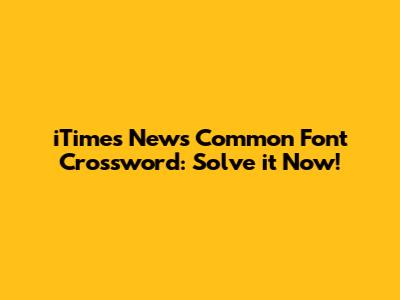
Hey guys! Ever get that itch to flex your brain muscles? Well, look no further! We're diving headfirst into the world of crosswords, specifically focusing on the iTimes News Common Font Crossword. This isn't just any crossword; it's a delightful blend of general knowledge, vocabulary, and a dash of font recognition (yes, you read that right!). So, grab your thinking caps, and let's get started!
Why iTimes News Common Font Crosswords Are Awesome
iTimes News Common Font Crosswords offer a unique twist on the classic crossword puzzle. What makes them awesome? Several reasons actually! First off, these crosswords often incorporate clues related to typography and font styles, adding an extra layer of challenge for design enthusiasts or anyone with a keen eye for detail. You might encounter clues that ask you to identify a specific font based on its characteristics or to name a famous typeface designer. This blend of traditional crossword elements with font-related questions makes the iTimes News crossword a stimulating and educational experience.
Secondly, the iTimes News Common Font Crossword puzzles generally maintain a high standard of clue quality and grid design. The clues are usually well-crafted, avoiding obscurity while still providing a satisfying level of difficulty. The grids are designed to be symmetrical and aesthetically pleasing, enhancing the overall solving experience. This attention to detail sets iTimes News crosswords apart and makes them a favorite among crossword aficionados. Also, solving crosswords, including the iTimes News Common Font Crossword, is a fantastic way to keep your mind sharp. Crosswords help improve vocabulary, enhance problem-solving skills, and boost cognitive function. Regularly tackling these puzzles can lead to improved memory, concentration, and overall mental agility. The sense of accomplishment you feel after completing a challenging crossword is also a great mood booster! Who wouldn't want to feel smarter and happier?
Decoding the Common Font Clues
When it comes to cracking those font-related clues, you'll want to familiarize yourself with common fonts and their characteristics. Think about fonts like Times New Roman, Arial, Helvetica, and Courier New. What are their distinguishing features? Is Times New Roman a serif or sans-serif font? Is Arial known for its clean lines? Knowing these basics will give you a head start. Also, pay attention to the wording of the clue. Does it hint at the font's origin, its designer, or its typical usage? Sometimes the clue will provide subtle hints that can guide you towards the correct answer. For example, a clue like "A widely used serif font for body text" is a strong indicator that the answer is Times New Roman. Furthermore, don't be afraid to use online resources to help you identify fonts. There are many websites and tools that allow you to upload an image of a font and identify it. These resources can be invaluable when you're stuck on a particularly tricky font clue. Keep an eye out for common font-related terms like "serif," "sans-serif," "italic," "bold," and "kerning." Understanding these terms will help you decipher clues and narrow down your options.
Strategies for Solving iTimes News Crosswords
Okay, let's talk strategy! Solving any crossword, including the iTimes News Common Font Crossword, requires a blend of skill, knowledge, and technique. Start with the easy clues. Fill in the answers you know right away. This will give you a foundation and provide some letters to work with for the more challenging clues. Also, look for common crossword patterns and prefixes. Words like "ERA," "STS," and prefixes like "RE-" and "UN-" often appear in crosswords. Recognizing these patterns can help you fill in gaps and make educated guesses.
Next, use the process of elimination. If you're unsure of an answer, consider the possible options and eliminate those that don't fit based on the crossing letters. This can help you narrow down your choices and increase your chances of finding the correct answer. Work on sections of the crossword at a time. Focus on one area of the grid and try to complete as many clues as possible in that section before moving on. This can help you build momentum and make progress more efficiently. Remember to read the entire clue carefully. Pay attention to any specific instructions or qualifiers that may be included in the clue. Sometimes the clue will provide a subtle hint that can help you arrive at the correct answer. Use online resources if you get stuck. There are many websites and forums where you can find crossword solvers, answer keys, and helpful tips. Don't be afraid to use these resources to give you a little boost when you're feeling stuck. Finally, take breaks when you need them. If you're feeling frustrated or burnt out, step away from the crossword for a few minutes and come back to it later with fresh eyes. Sometimes a little bit of distance can help you see things more clearly.
Common Mistakes to Avoid
We've all been there – staring blankly at a clue, convinced we'll never solve it. But fear not! Avoiding common pitfalls can significantly improve your crossword game. A frequent mistake is misinterpreting the clue. Always read the clue carefully and pay attention to any specific instructions or qualifiers. For example, a clue might ask for a synonym, an abbreviation, or a word from a foreign language. Failing to recognize these nuances can lead you down the wrong path. Another common mistake is overlooking the crossing letters. The letters that are already filled in from other answers can provide valuable clues and help you eliminate incorrect possibilities. Make sure to pay attention to these crossing letters and use them to your advantage.
Also, people often give up too easily. Crosswords can be challenging, but persistence is key. Don't be afraid to struggle with a clue for a while, and don't give up until you've exhausted all possible options. Sometimes the answer will come to you when you least expect it. Furthermore, neglecting to check your answers is a common mistake that can lead to frustration later on. Before you finalize your solution, take the time to double-check all of your answers and make sure they fit with the crossing letters. A simple mistake can throw off the entire puzzle. Also, relying too heavily on online solvers is a mistake that can hinder your progress and prevent you from developing your own problem-solving skills. While online solvers can be helpful in a pinch, try to use them sparingly and focus on solving the crossword yourself. Finally, forgetting to have fun is a mistake that can take the joy out of the experience. Remember that crosswords are meant to be enjoyable, so relax, have fun, and don't take yourself too seriously. Enjoy the challenge and the satisfaction of completing a difficult puzzle.
Resources for iTimes News Crossword Enthusiasts
Alright, crossword aficionados, let's arm ourselves with the best resources out there! For starters, the official iTimes News Crossword site is your go-to destination. Here, you'll find daily crosswords, archives of past puzzles, and helpful tips and tutorials. It's a treasure trove of crossword goodness! There are also numerous websites and apps dedicated to crosswords. Sites like Crossword Solver, Merriam-Webster, and Dictionary.com can help you find definitions, synonyms, and anagrams, giving you a leg up on tricky clues.
Also, don't underestimate the power of crossword puzzle books! These books offer a wide variety of puzzles, ranging from easy to challenging, and they're perfect for offline solving. Look for books specifically designed for iTimes News crosswords or general crossword puzzle collections. You can learn from crossword experts by following blogs, podcasts, and online communities dedicated to crosswords. These resources often provide insights into solving techniques, clue analysis, and the latest crossword trends. The New York Times Crossword Community is a great place to connect with other crossword enthusiasts. Furthermore, consider joining a local crossword club or starting one of your own. Solving crosswords with friends can be a fun and social activity, and it's a great way to share tips and strategies. Finally, practice makes perfect! The more crosswords you solve, the better you'll become at recognizing patterns, deciphering clues, and expanding your vocabulary. Make crossword solving a regular habit, and you'll be amazed at how quickly your skills improve.